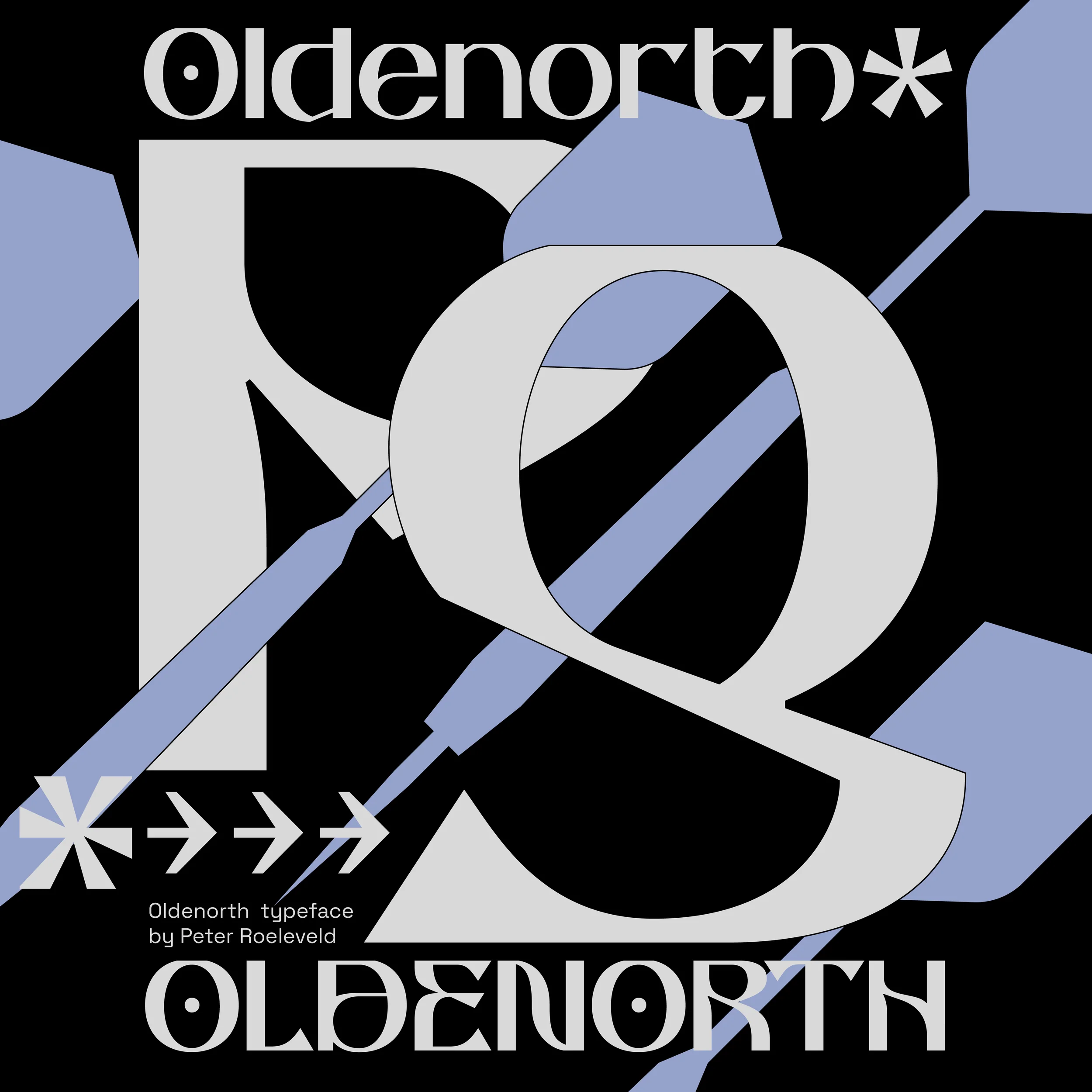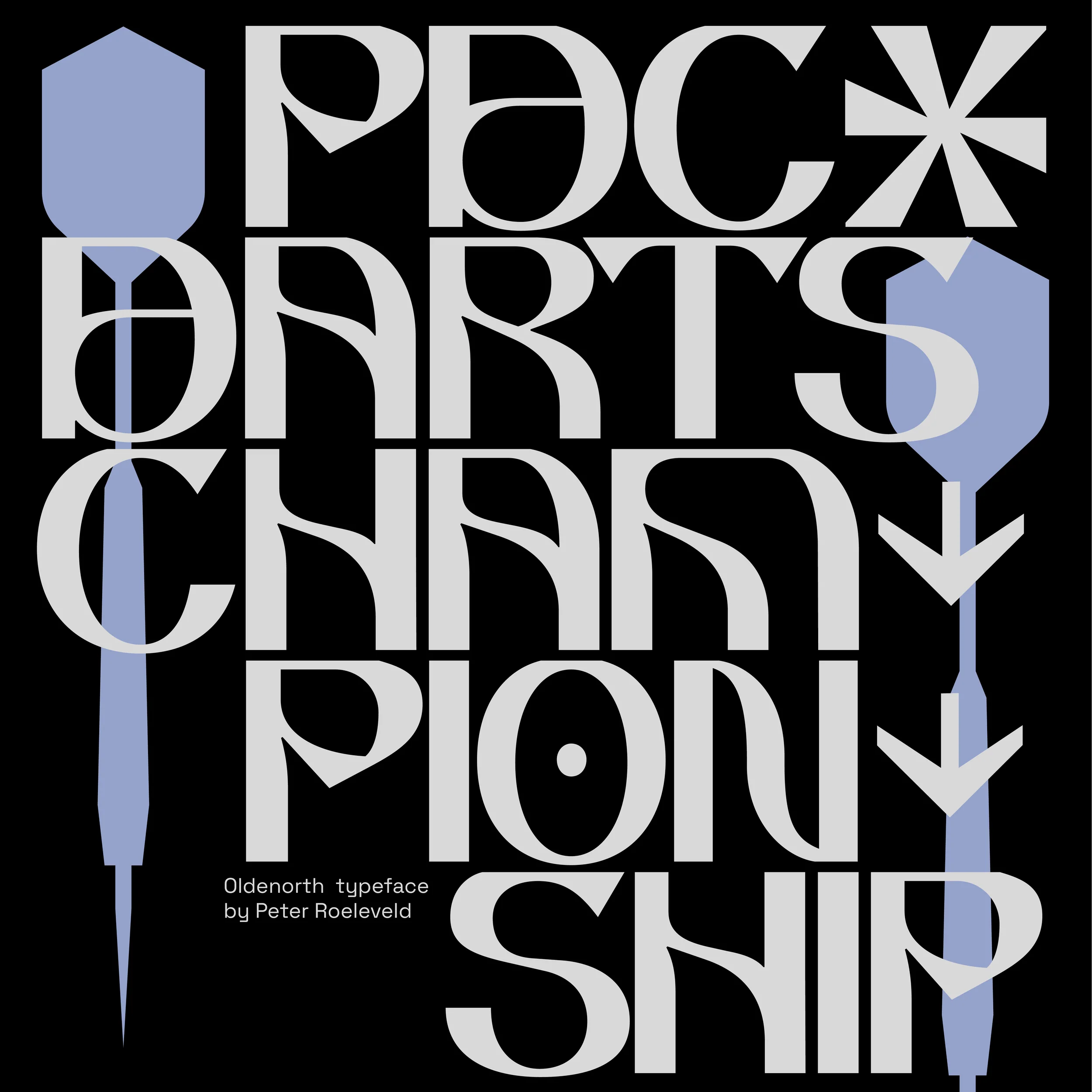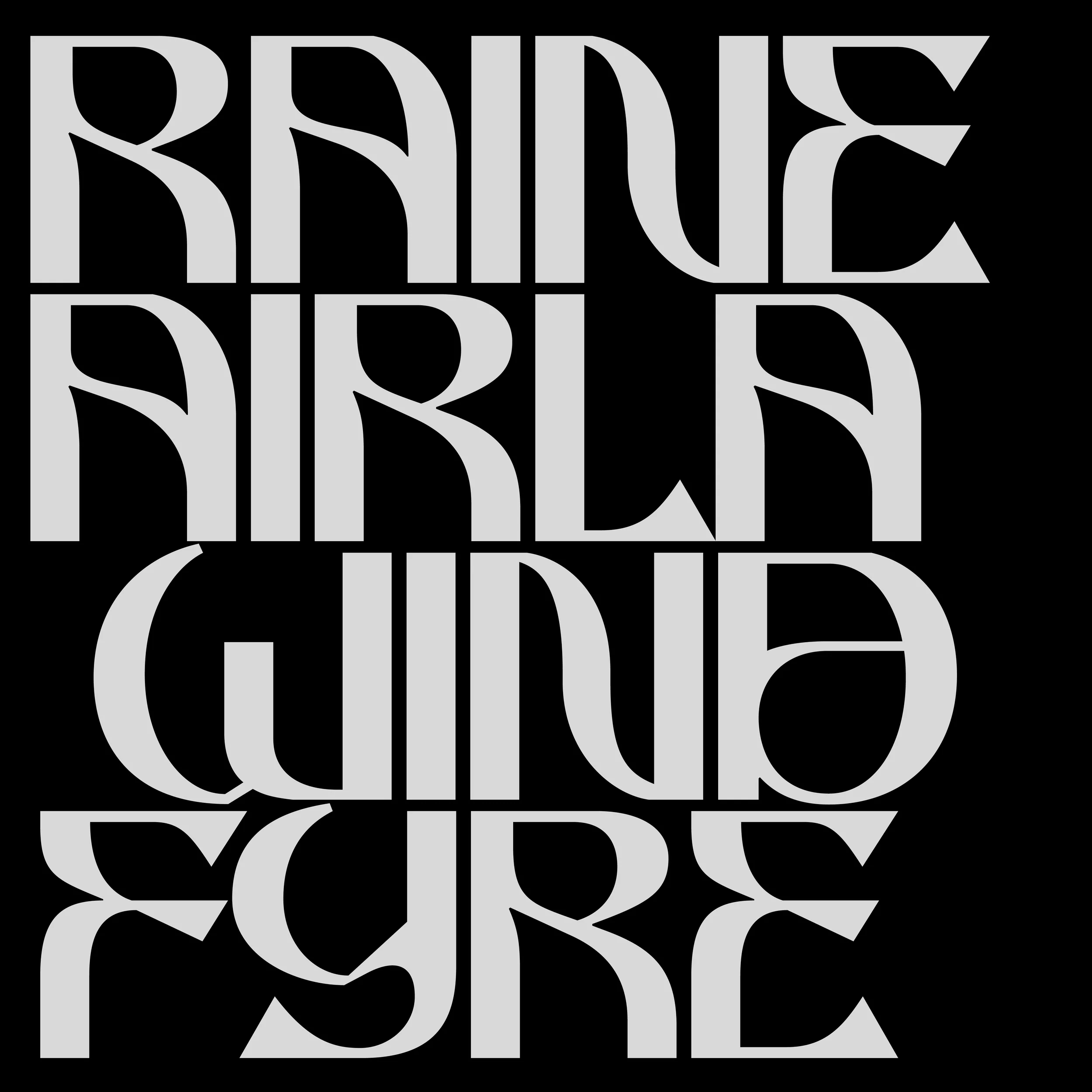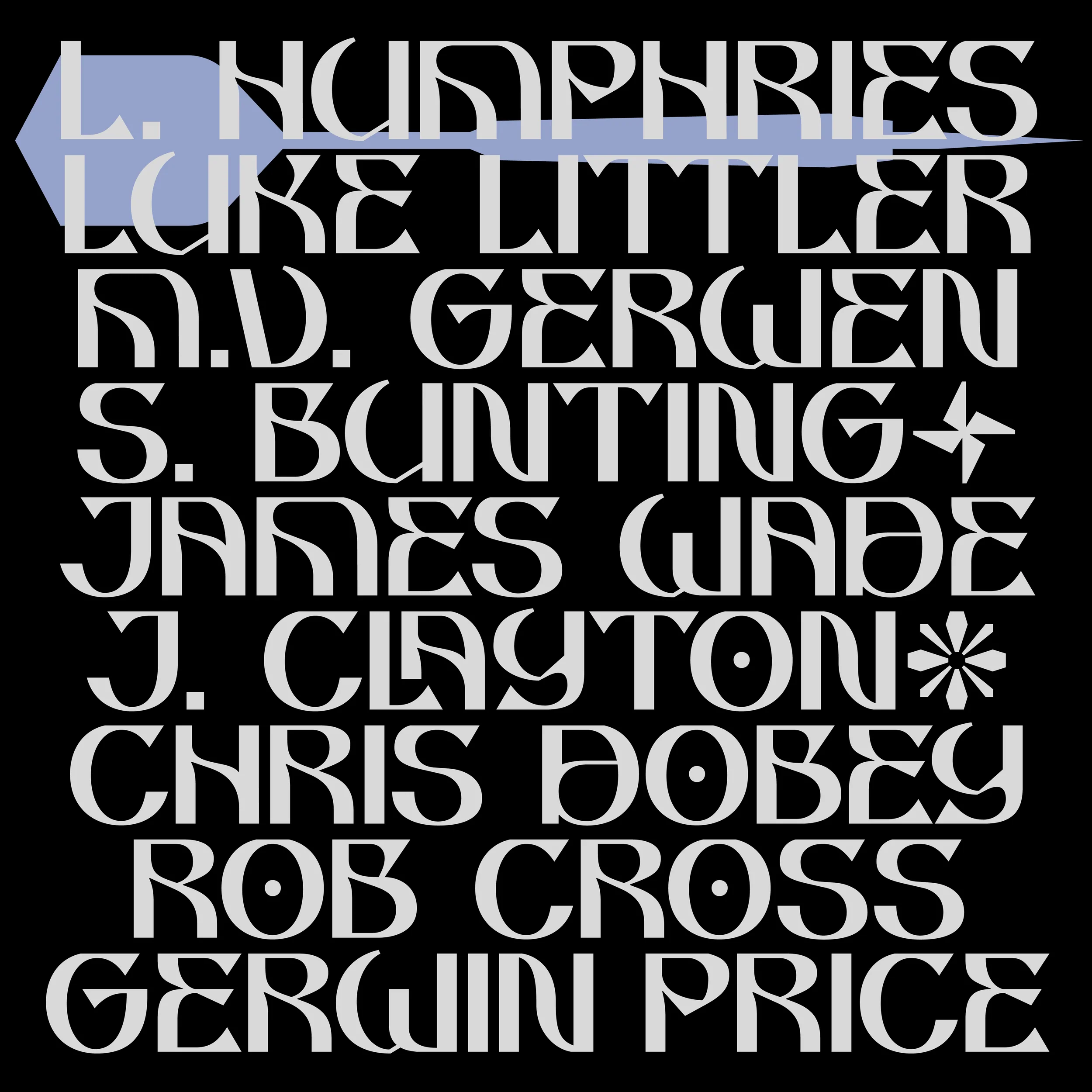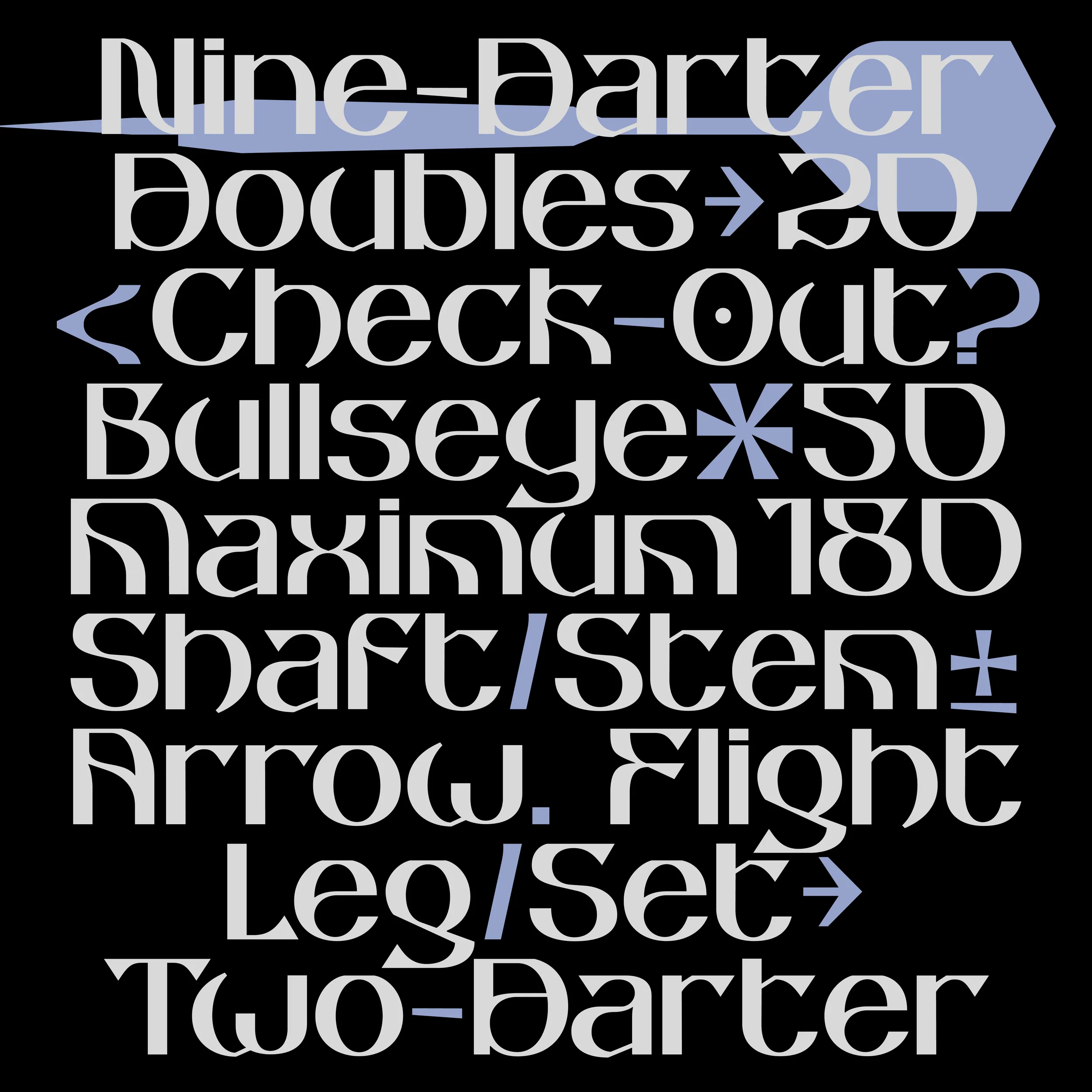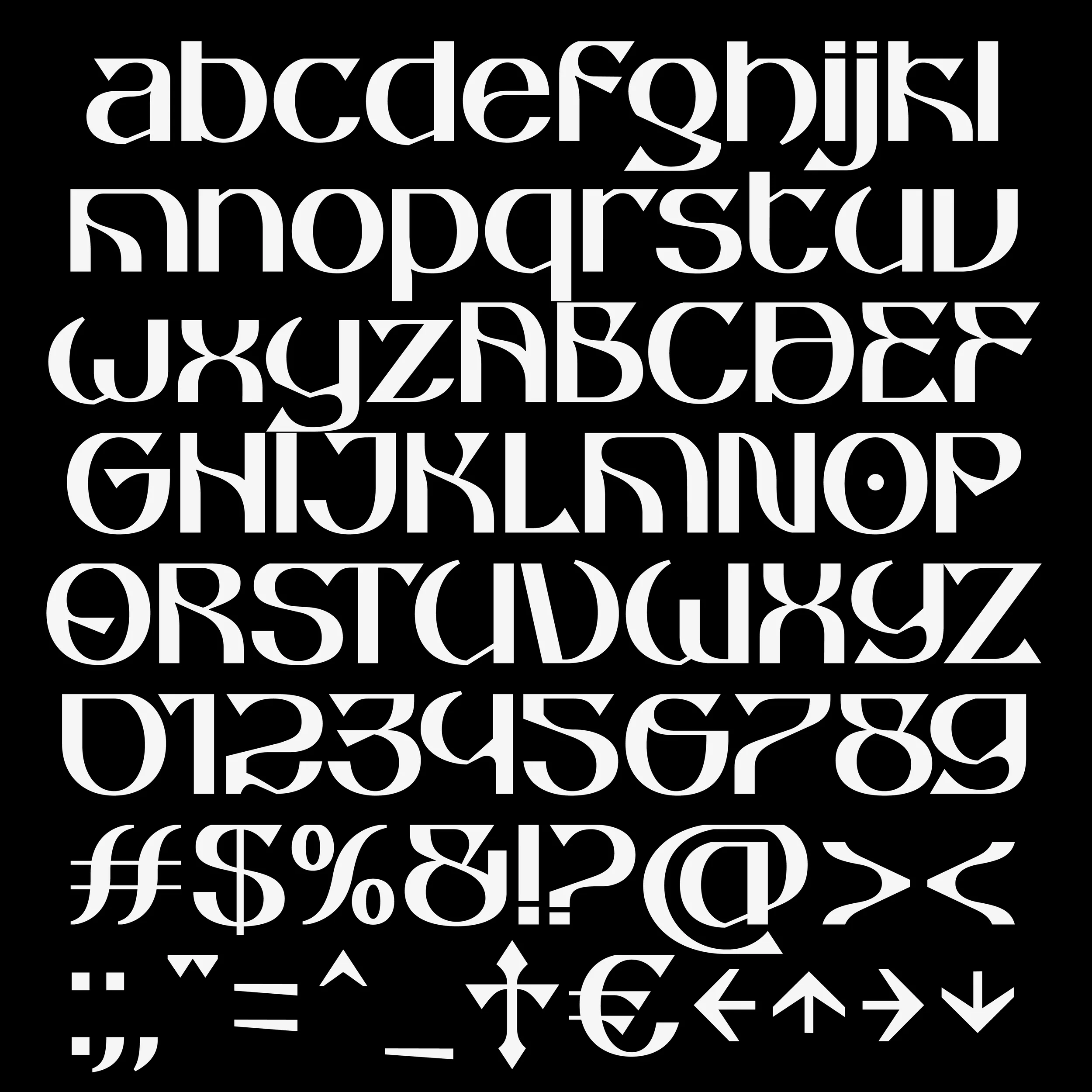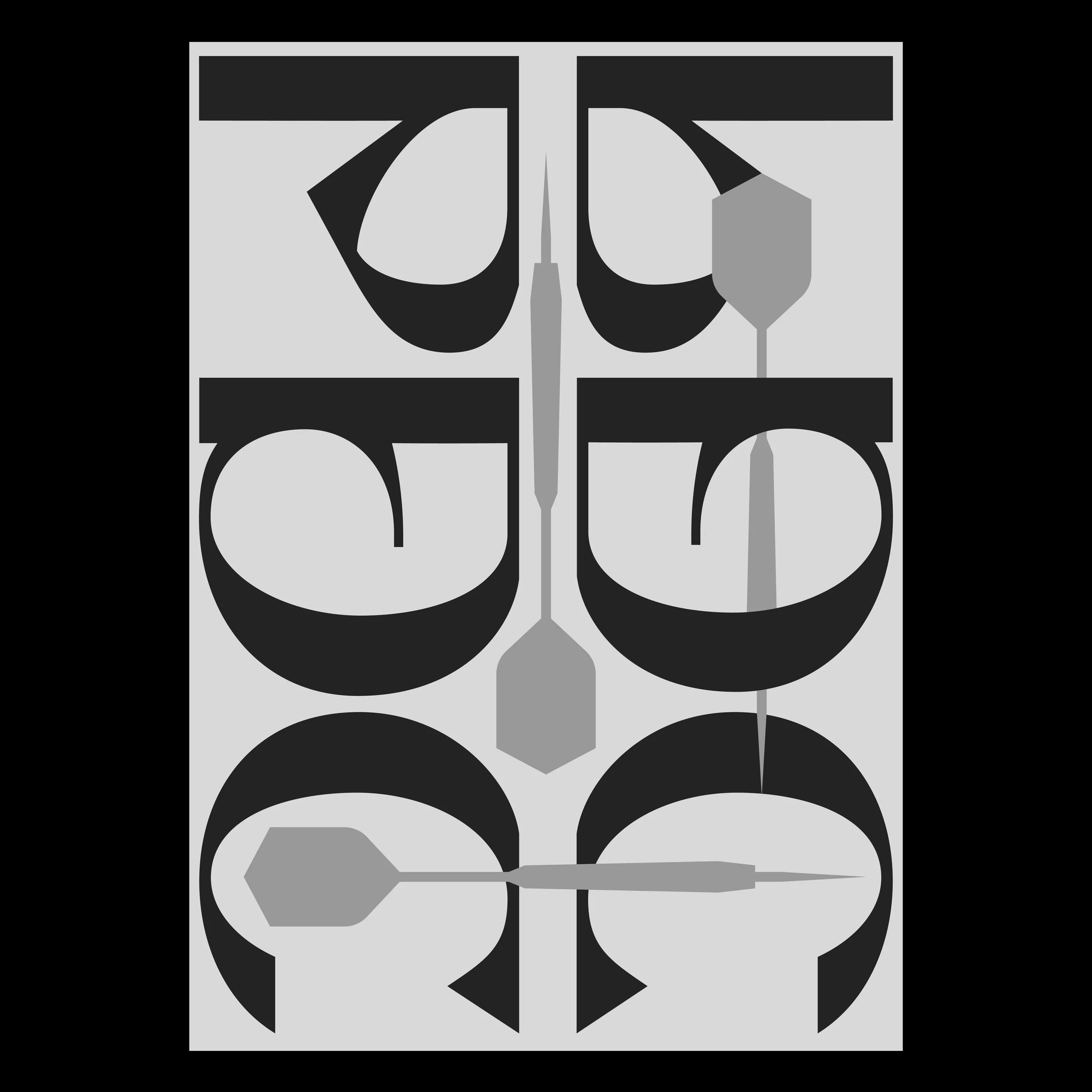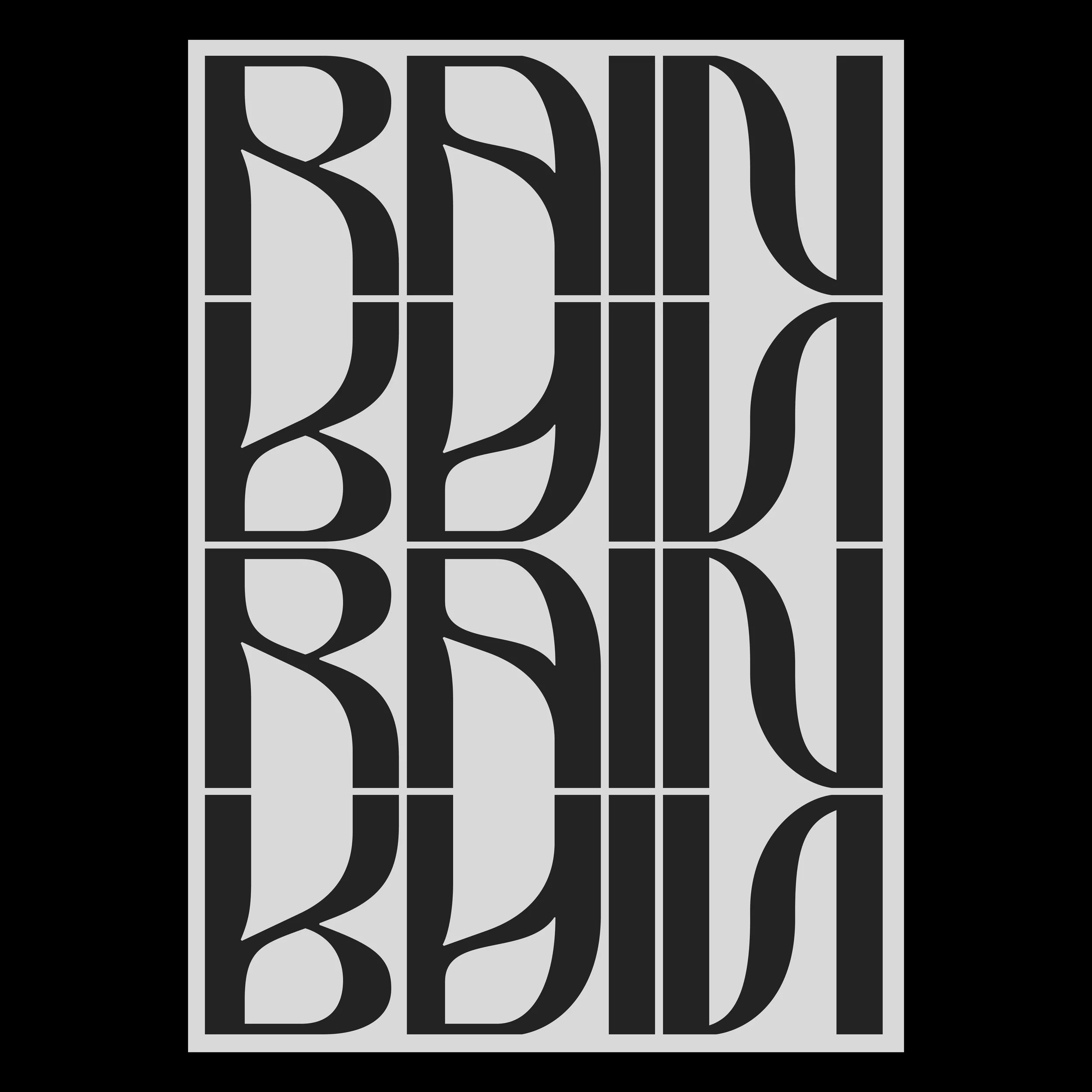
Oldenorth
Oldenorth is a typeface that focuses on legibility from a middistance while also adding a unique decorative characterism to it: Low Cap-Height, flat surface on each glyph and a few unique glyph designs(m,k).
The name Oldenorth originates from the place where the font was crafted. Literally translated back from English to Dutch, Oldenorth means ‘Oudenoord’. Which is a street name in the Netherlands, Utrecht.
Oldenorth is a typeface that focuses on legibility from a middistance while also adding a unique decorative characterism to it: Low Cap-Height, flat surface on each glyph and a few unique glyph designs(m,k).
The name Oldenorth originates from the place where the font was crafted. Literally translated back from English to Dutch, Oldenorth means ‘Oudenoord’. Which is a street name in the Netherlands, Utrecht.